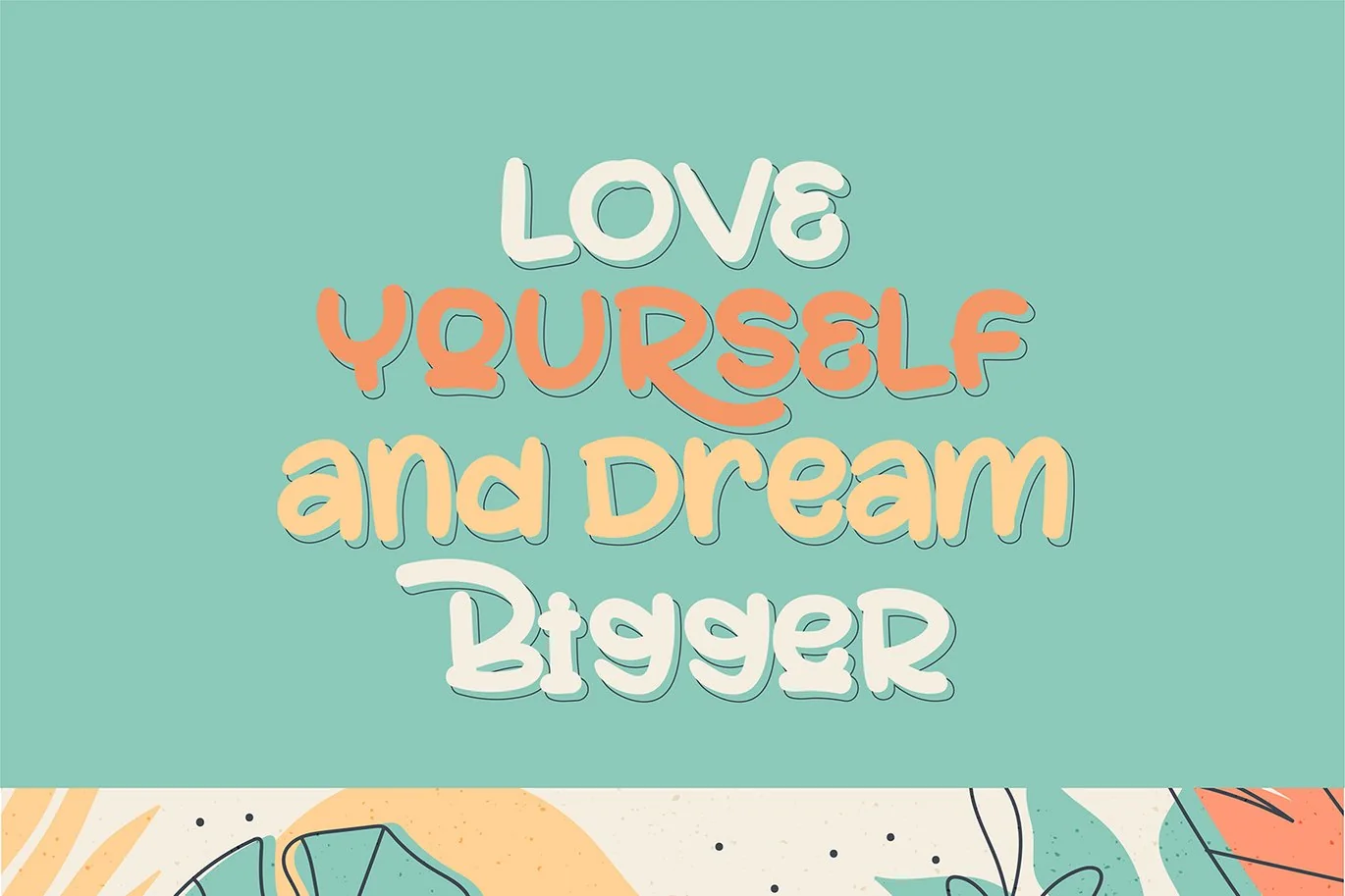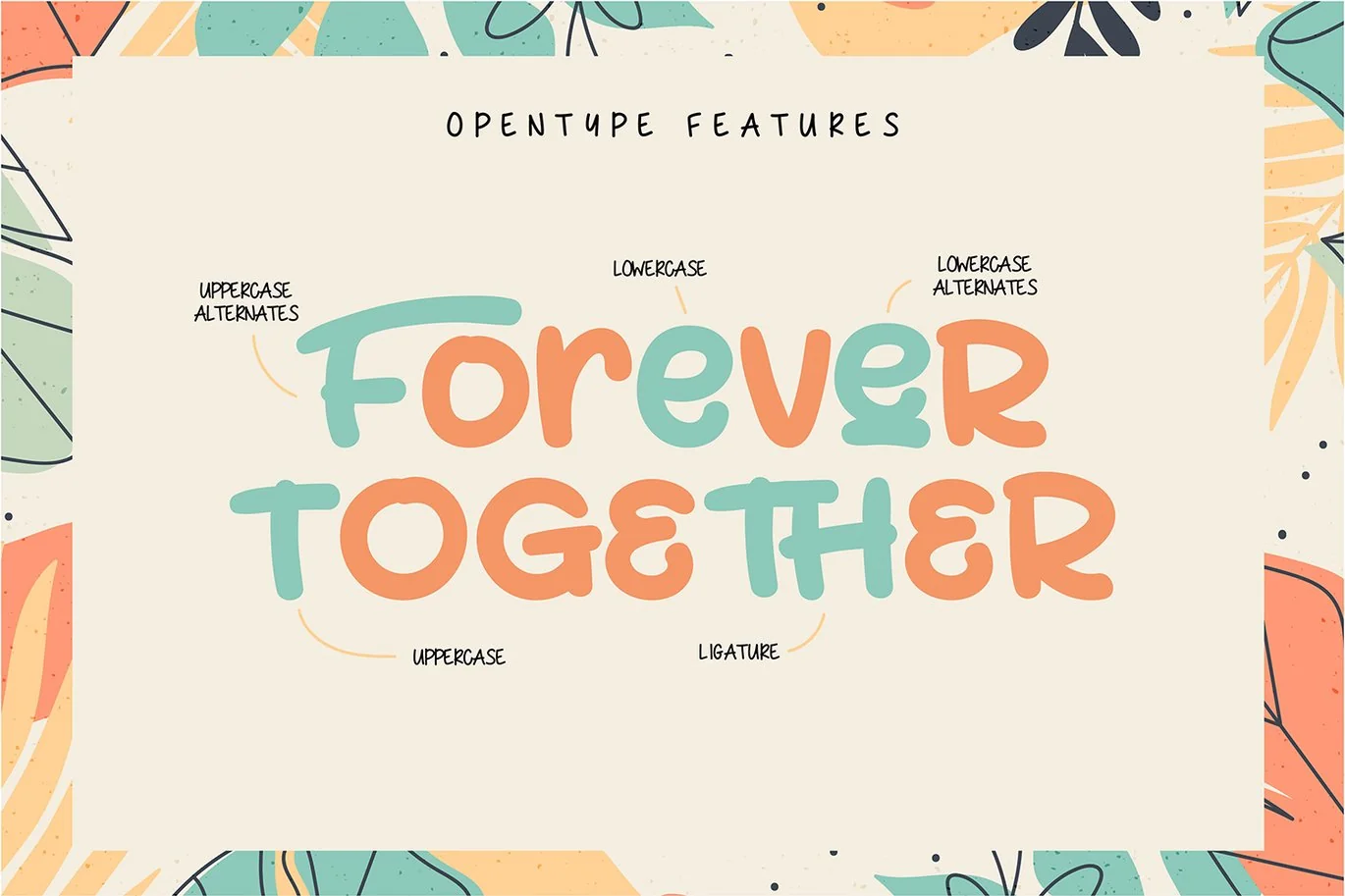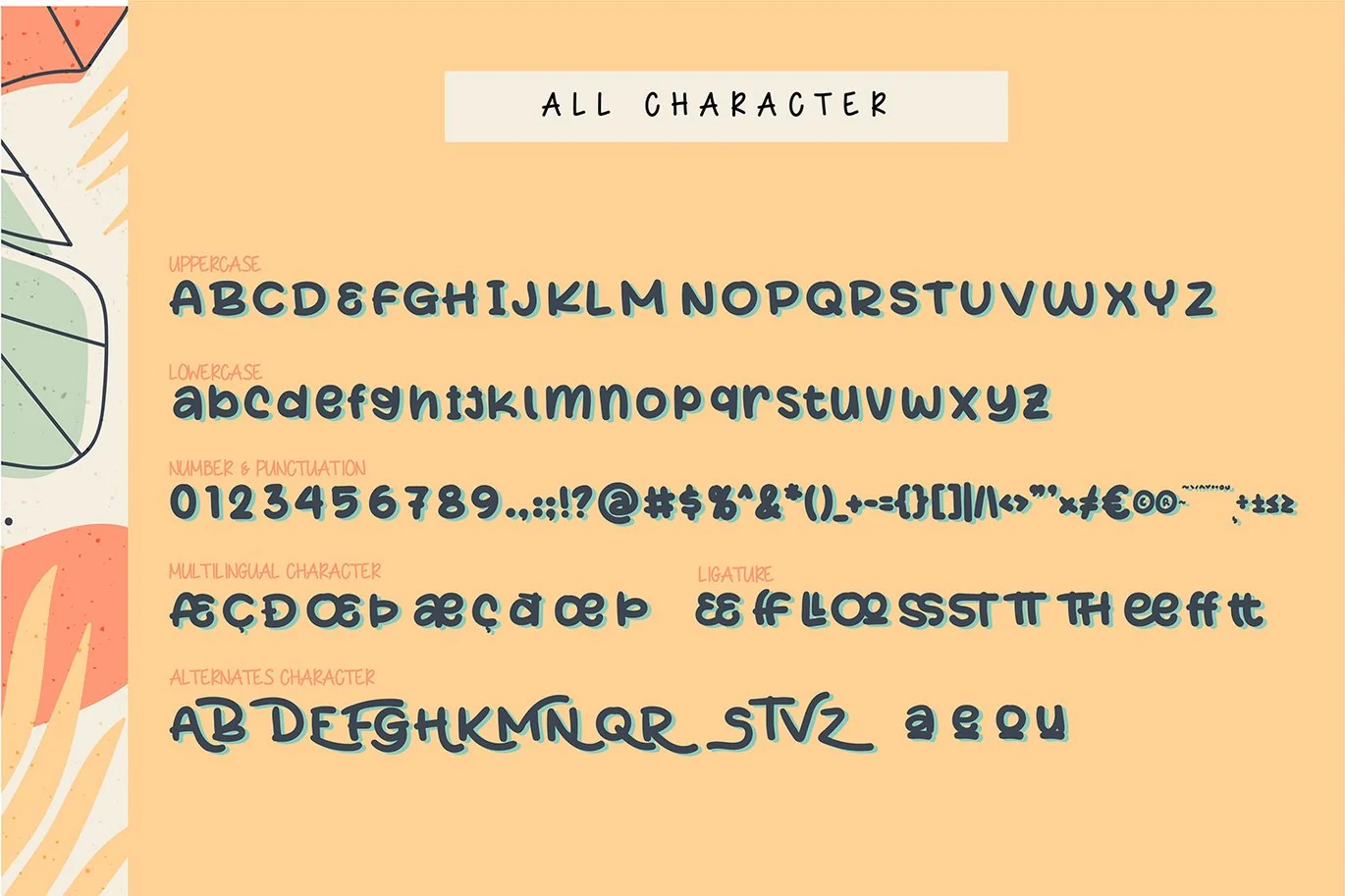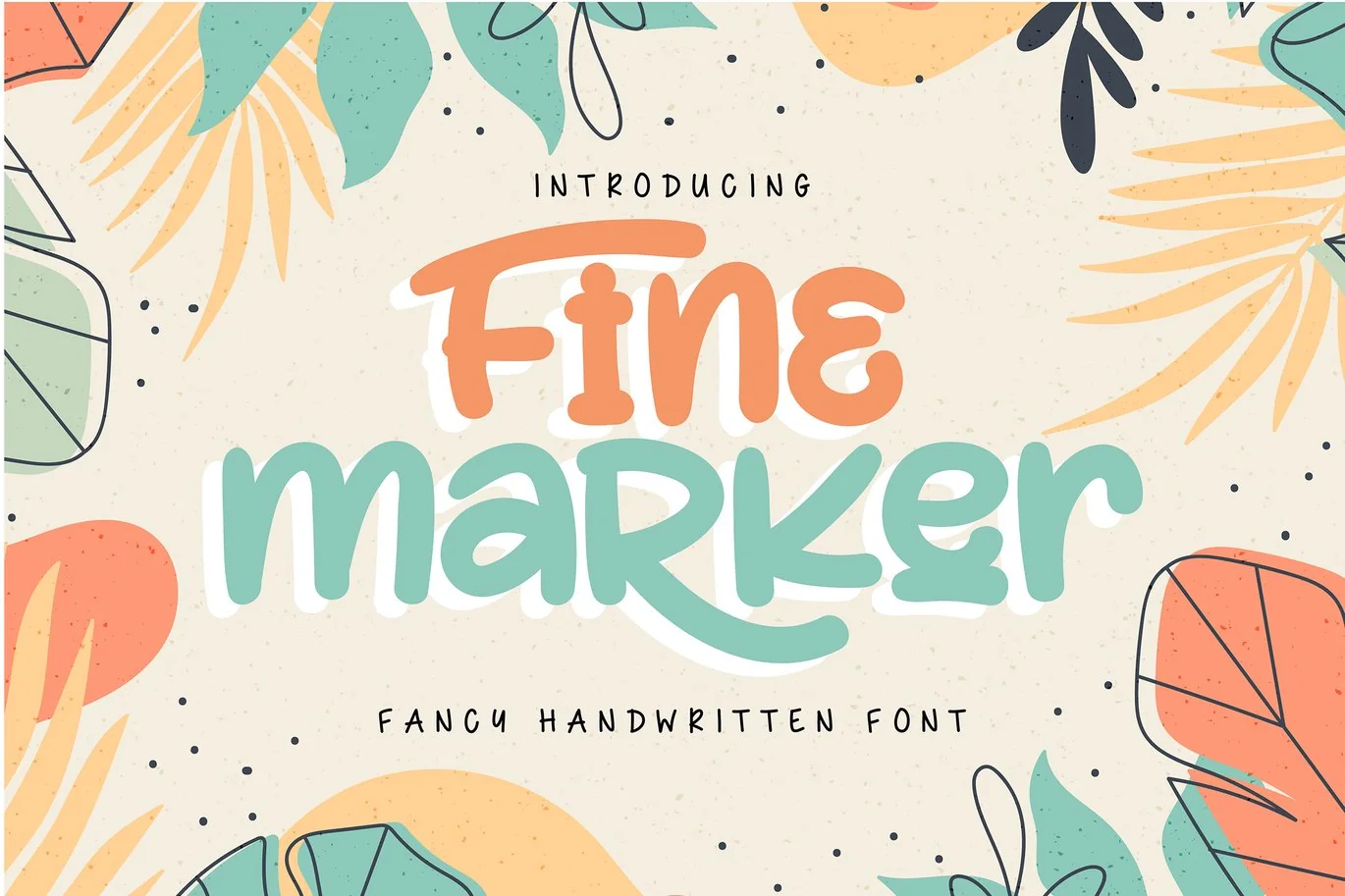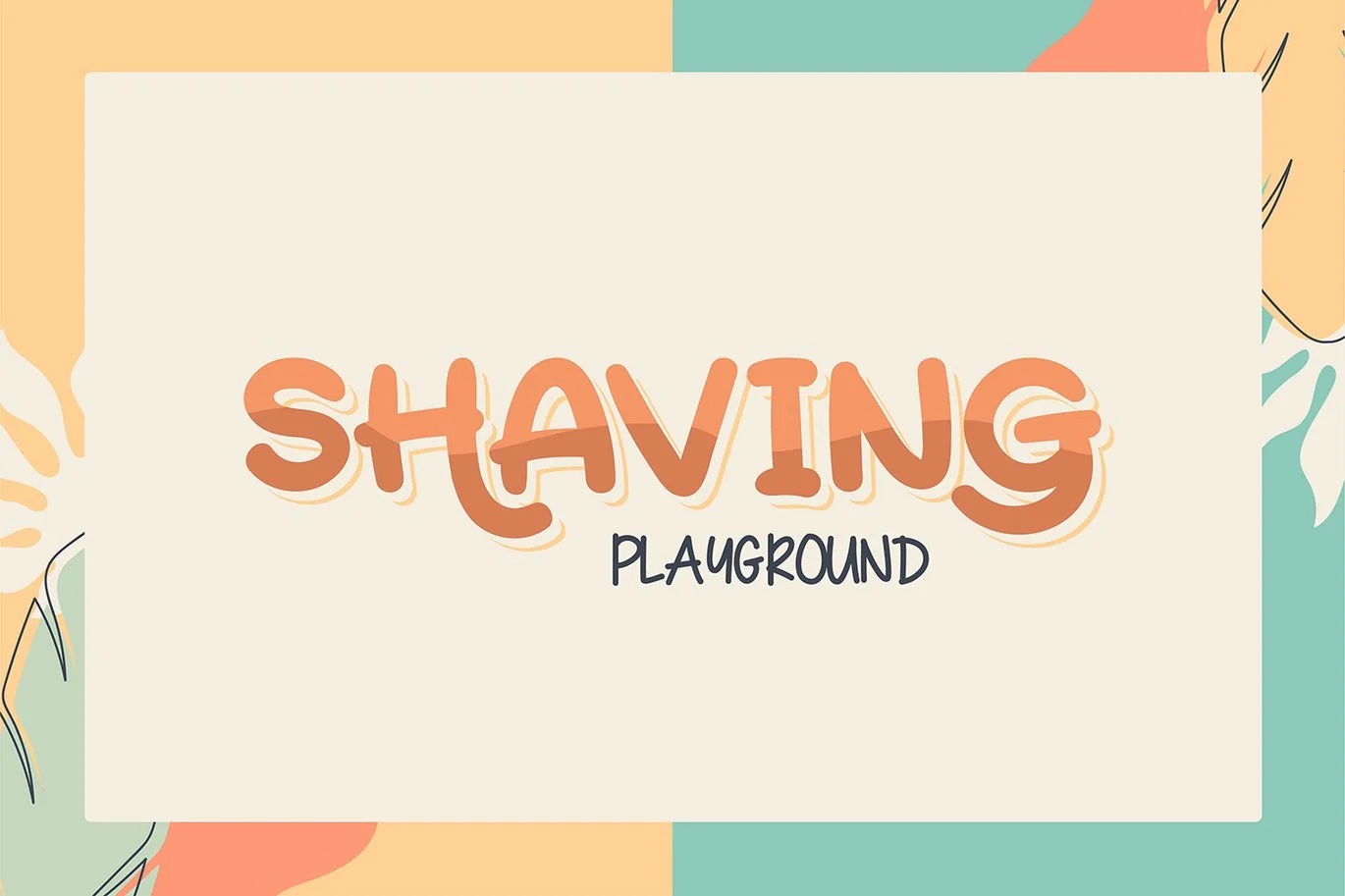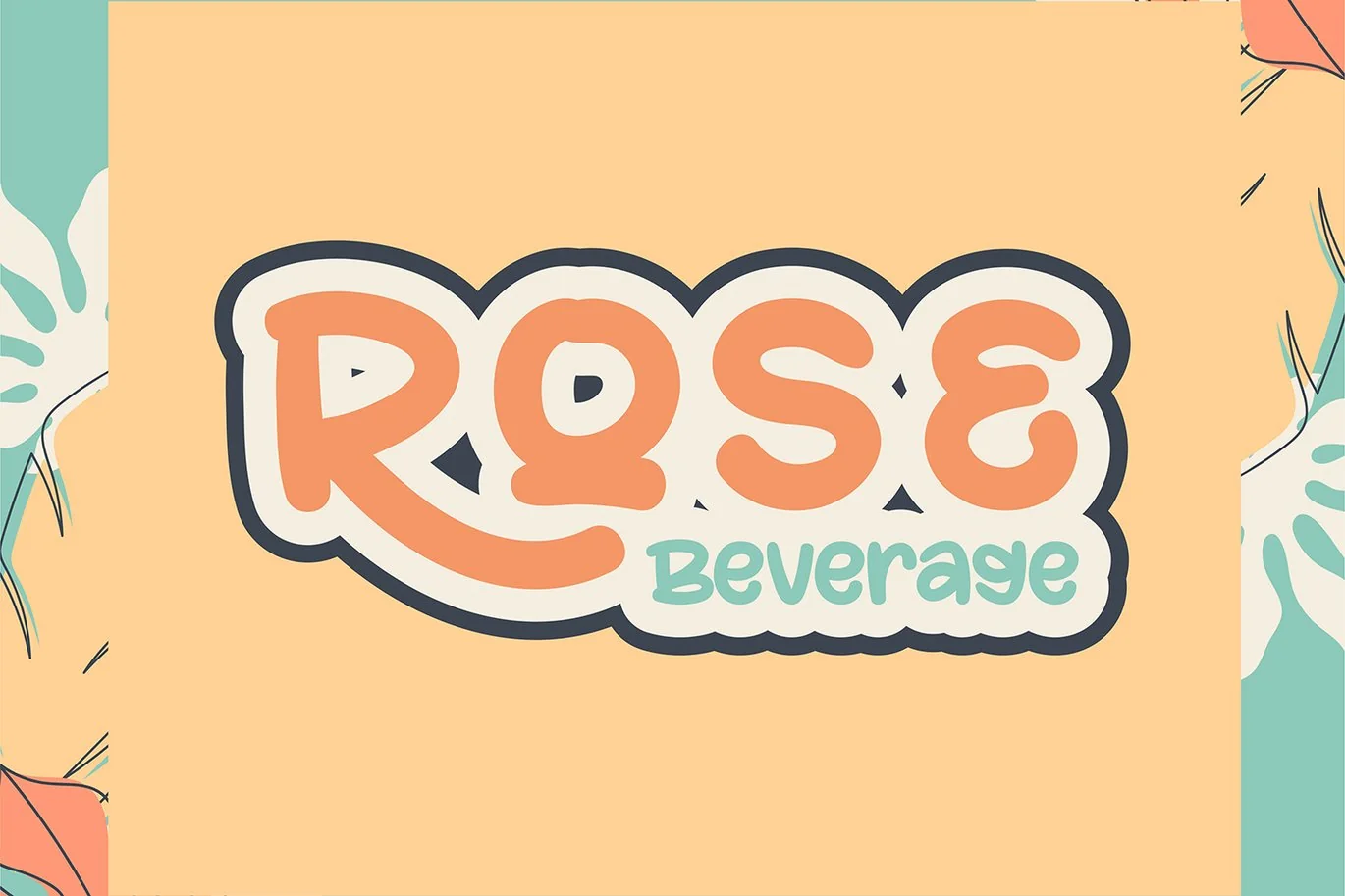
Fine Marker | Fancy Handwritten Font
Fine Marker | Fancy Handwritten Font with a calligraphy style, So beautiful on invitation like greeting cards, branding materials, business cards, quotes, posters, and more!